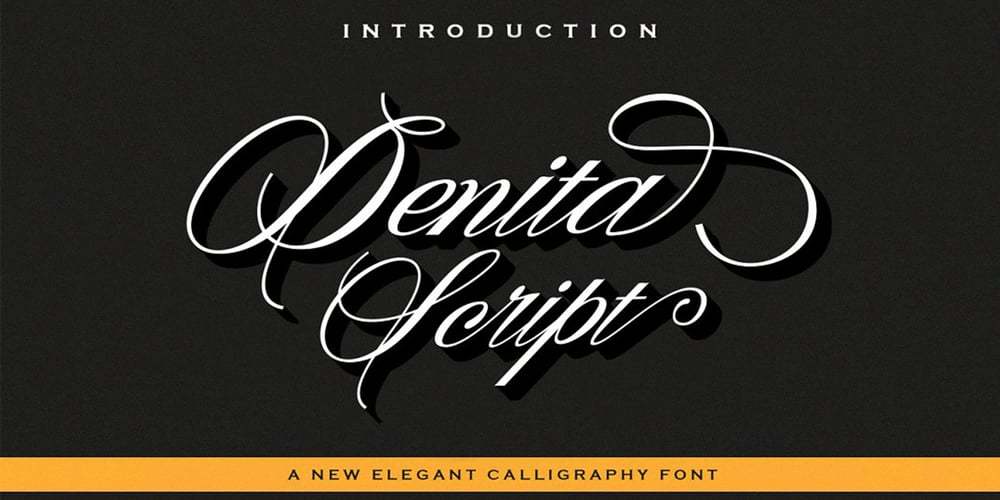
Denita Script
Denita Script font
Denita Script Font Family was designed by Riski Firmana and published by Solidtype. Denita Script contains 1 styles and family package options. Denita Script is highly legible calligraphy font, a simply beautiful, classy and elegant typeface. Can be used for various purposes.such as logos, wedding invitation, t-shirt, letterhead, signage, news, posters, badges etc. Denita Script features Opentype with alternate characters, including initial and terminal letters, alternates, ligatures and multiple language support.To enable the OpenType Stylistic alternates, you need a program that supports OpenType features such as Adobe Illustrator CS, Adobe Indesign & CorelDraw X6-X7, Microsoft Word 2010 or later versions.Thank you.